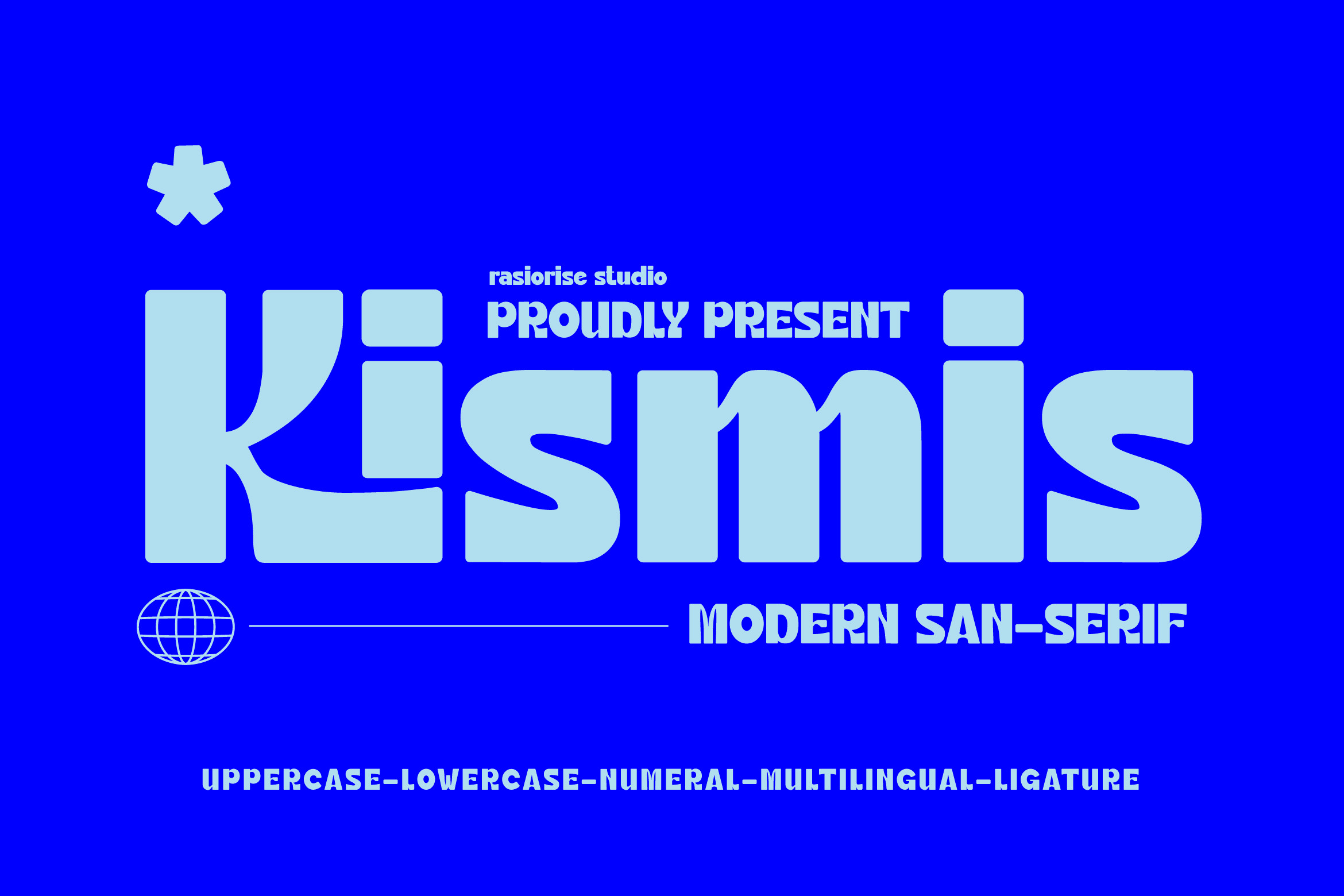
Kismis a Sans Serif Font
Hello Everyone! Kismis Font has been released for those of you who are looking for a Geometric/Grotesk Font is a Bold and condensed typeface. Counter-culture the shape of a sans-serif font with an intentionally for Inktrap any size, The font is inspired by the Sans Serif Bold and Headline Sans-Serif Style font with a few combine to turn them into a bit of a Pop and Playful style. Unleash your creativity at Modern Grotesk future text with Kismis Font, perfect for adding a Grotesk and Intrap Poster touch to any projects!
Kismis Font very suitable for Logotype, Book Cover, Badge/Emblem Design and Logo, Gift Card, Gretting Card, Poster, Merchandise, Packaging Label, and much more.